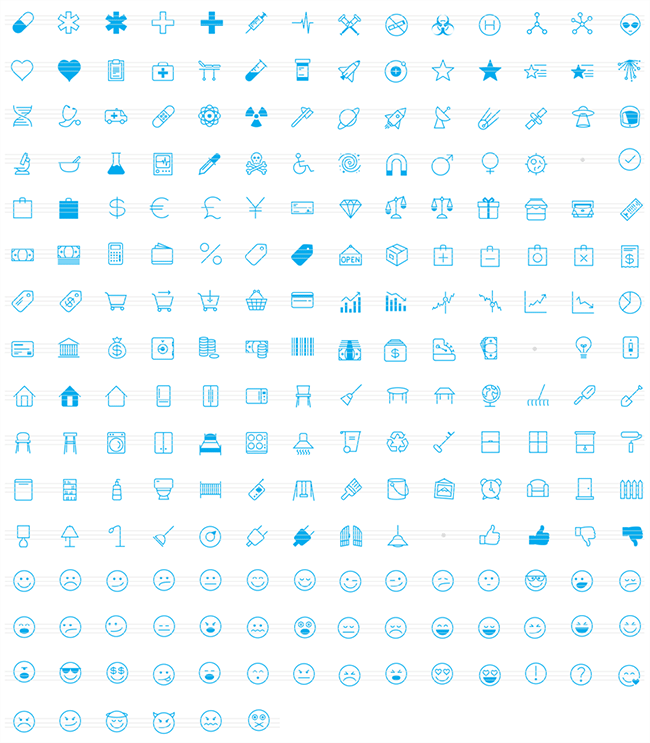
Elite Pro: 850+ Vector Icons Usable As 13 Premium Web Fonts
Icons. They certainly make the world go round. Well, at least the World Wide Web, that is. If you're looking to add a set of icons to your latest project (be it an app, a template, theme, website, or whatnot), you most likely have some very specific needs. There's size, style and variety. With a library of more than 800 unique icons, the PictoFoundry Elite Pro pack should more than cover it.
PictoFoundry Elite Pro Pack Highlights:
• 800+ Unique Icons
Your purchase of this Mighty Deal gets you PictoFoundry's full collection of professional icons. That's 852 high-quality icons to use on your website, app or whatever your next big project turns out to be!
• 13 Icon Categories
A collection of 852 icons is large load to deal with. Don't worry, though. They're not all from the same icon category. That'd either be perfect or perfectly useless depending upon your needs! No, this collection features 13 popular categories including: arrows, clothing, emotions, food, household, nature, sports, science, shopping, vehicles, and more!
• Customizable
• 9 Pre-Selected Sizes
• CSS Controlled Web Fonts, No Images
PictoFoundry icons also have a pretty neat secret too. They're used as web fonts! That means you don't even have to add a single image to use them. Instead, you can just edit and style your icons right from your website's CSS itself. That means no dealing with Photoshop or image sprites.